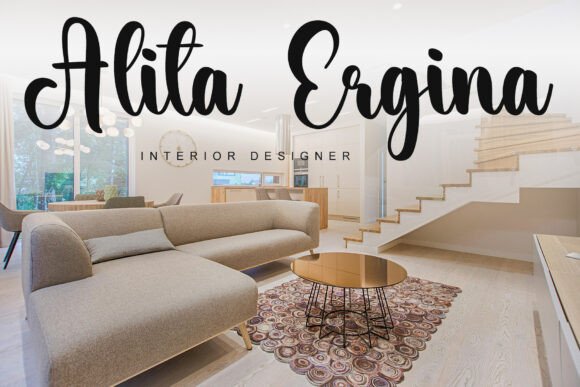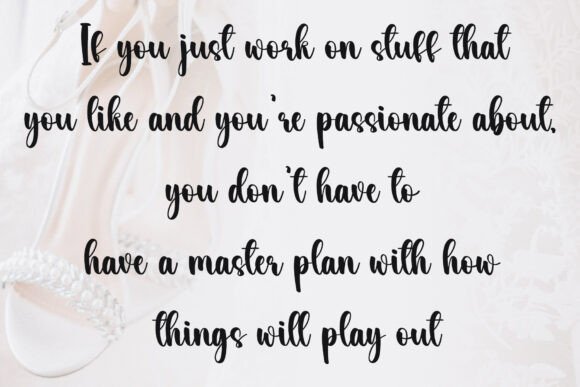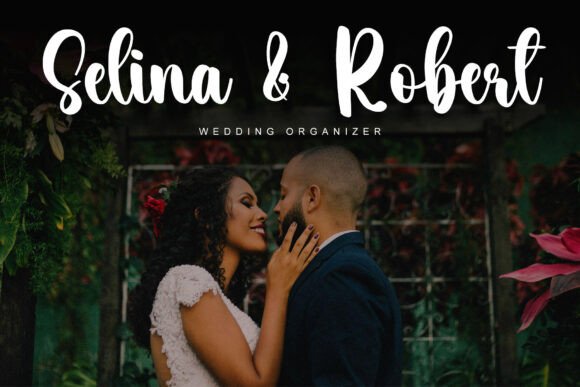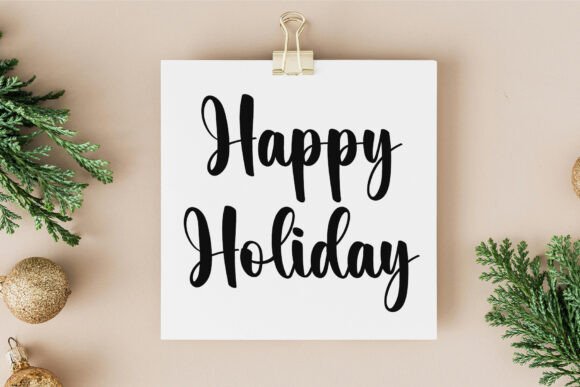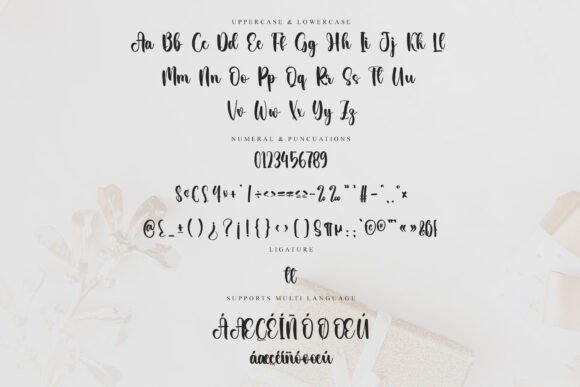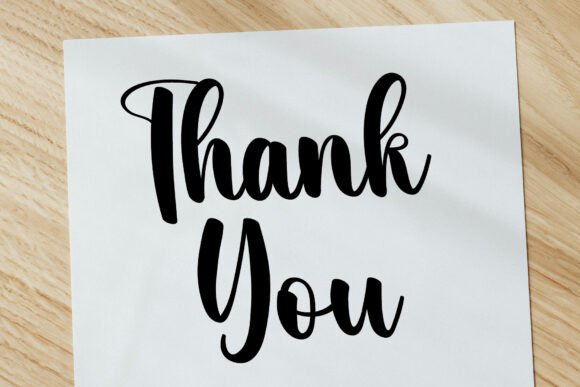
Unwrapping the Magic of Behind Tasty Font: A Holiday Designer’s Delight
The holiday season is upon us, and with it comes the joy of creating festive and merry designs that capture the spirit of the times. As a designer or crafter, you’re likely on the lookout for the perfect typeface to add a touch of enchantment to your projects. Look no further than the Behind Tasty font, a decorative and whimsical font that’s sure to bring a cheerful and nostalgic ambiance to your words.
The Story Behind Behind Tasty Font
Behind Tasty font is a carefully crafted typeface designed to evoke the magic of the holiday season. Its creator, a talented typographer, drew inspiration from traditional holiday fonts, infusing them with a modern twist to create a unique and eye-catching design. The result is a font that’s both festive and elegant, perfect for a wide range of holiday-themed projects.
Design Features of Behind Tasty Font
So, what makes Behind Tasty font so special? Here are just a few of its standout design features:
- Decorative Elements: Behind Tasty font boasts an array of decorative elements, including intricate swashes, flourishes, and ornaments. These add a touch of whimsy and festivity to your designs, making them perfect for holiday-themed projects.
- Whimsical Flair: The font’s whimsical flair is evident in its playful letterforms, which feature subtle imperfections and quirks that give them a hand-crafted feel.
- Variety of Characters: Behind Tasty font includes a wide range of characters, including uppercase and lowercase letters, numbers, and punctuation marks. This ensures that you have everything you need to create beautiful, cohesive designs.
Behind Tasty font is specifically designed with holiday projects in mind. Here are just a few ideas for how you can use this beautiful font:
- Greeting Cards: Add a touch of festive cheer to your holiday greeting cards with Behind Tasty font. Its decorative elements and whimsical flair make it perfect for creating eye-catching and memorable designs.
- Gift Tags: Make your gift tags stand out with Behind Tasty font. Its elegant and festive design ensures that your gifts will be the talk of the town.
- Holiday-Themed Projects: From holiday posters and flyers to social media graphics and website headers, Behind Tasty font is the perfect choice for any holiday-themed project.
Tips for Using Behind Tasty Font
To get the most out of Behind Tasty font, here are a few tips to keep in mind:
- Experiment with Sizes: Don’t be afraid to experiment with different font sizes to create visual interest and hierarchy in your designs.
- Mix and Match: Combine Behind Tasty font with other fonts to create a unique and eye-catching design.
- Play with Colors: Behind Tasty font looks beautiful in a range of colors, from traditional holiday hues like red and green to metallic shades like gold and silver.